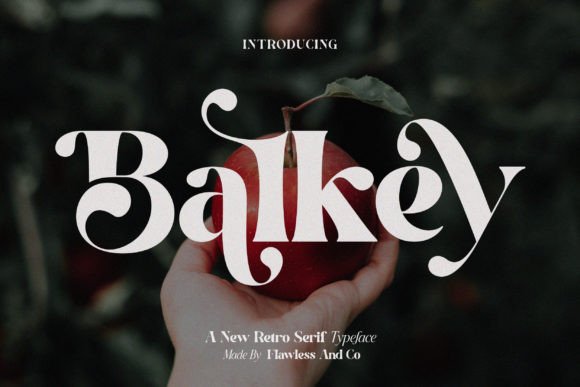
Introducing Balkey – A Captivating Retro Serif Display Font
In the world of typography, fonts play a crucial role in conveying the tone and personality of a design. With thousands of fonts available, it can be challenging to find the perfect one that stands out from the crowd. However, if you’re looking for a font that brings a touch of fun and uniqueness to your designs, look no further than Balkey. This captivating retro serif display font is perfect for projects that demand a hint of playful elegance.
What is Balkey Font?
Balkey is a thoughtfully crafted retro serif display font that exudes a sense of nostalgia and charm. Its distinct style is characterized by bold lines, elegant curves, and a touch of playfulness. The font’s unique design makes it an excellent choice for headlines, titles, and other display purposes. Whether you’re working on a branding project, advertising campaign, or editorial design, Balkey is sure to make a statement.
Key Features of Balkey Font
So, what sets Balkey apart from other fonts? Here are some of its key features:
- Retro Style: Balkey boasts a retro aesthetic that’s reminiscent of classic typography from the past. Its vintage charm is perfect for designs that require a nostalgic feel.
- Serif Display Font: As a serif display font, Balkey features elegant serifs that add a touch of sophistication to your designs.
- Playful Elegance: Despite its retro style, Balkey has a playful quality that makes it perfect for designs that require a hint of whimsy.
- Highly Versatile: Balkey can be used for a wide range of design projects, from branding and advertising to editorial design and packaging.
Uses of Balkey Font
Balkey’s versatility makes it an excellent choice for various design projects. Here are some of the ways you can use Balkey:
- Branding and Logo Design: Use Balkey to create a unique and memorable brand identity that stands out from the competition.
- Advertising and Marketing: Balkey’s playful elegance makes it perfect for advertising campaigns that require a touch of sophistication and whimsy.
- Editorial Design: Use Balkey to add a touch of nostalgia and elegance to your editorial designs, such as magazines, newspapers, and books.
- Packaging Design: Balkey’s bold and playful style makes it an excellent choice for packaging design, particularly for products that require a retro or vintage aesthetic.
Why Choose Balkey Font?
With so many fonts available, why should you choose Balkey? Here are some reasons why Balkey stands out:
- Unique Style: Balkey’s distinct style sets it apart from other fonts, making it an excellent choice for designers who want to create something unique.
- Elegance and Playfulness: Balkey’s combination of elegance and playfulness makes it perfect for designs that require a touch of sophistication and whimsy.
- High-Quality Design: Balkey is a high-quality font that’s designed to deliver exceptional results, even at large sizes.
Tips for Using Balkey Font
To get the most out of Balkey, here are some tips for using the font:
- Use it as a Display Font: Balkey is designed to be used as a display font, so use it to create headlines, titles, and other prominent text elements.
- Experiment with Colors: Balkey’s bold style makes it perfect for experimenting with different colors and textures.
- Pair it with Other Fonts: Balkey can be paired with other fonts to create a unique and visually appealing typography scheme.
- Use it to Add Contrast: Use Balkey to add contrast to your designs by pairing it with simpler fonts or using it to highlight important text elements.
In conclusion, Balkey is a captivating retro serif display font that’s perfect for designers who want to add a touch of fun and uniqueness to their designs. Its distinct style, nostalgic charm, and playful elegance make it an excellent choice for a wide range of design projects. Whether you’re working on a branding project, advertising campaign, or editorial design, Balkey is sure to make a statement. So why not give Balkey a try and see how it can elevate your designs?